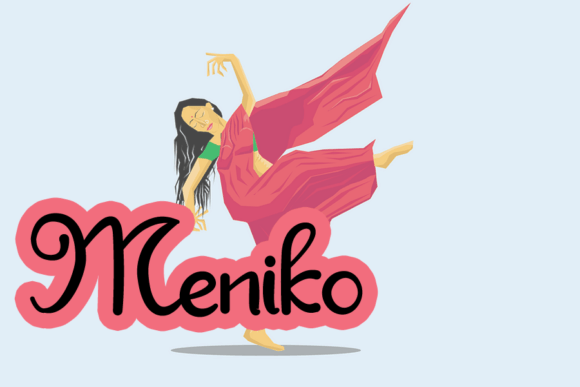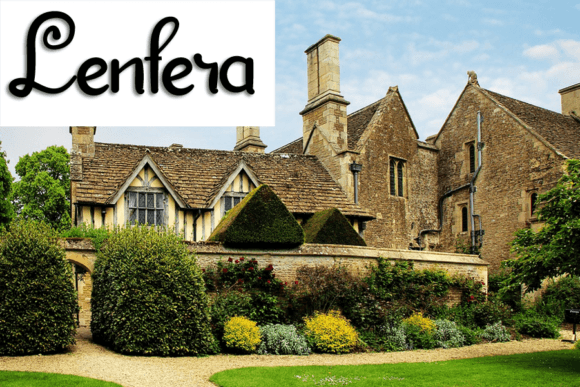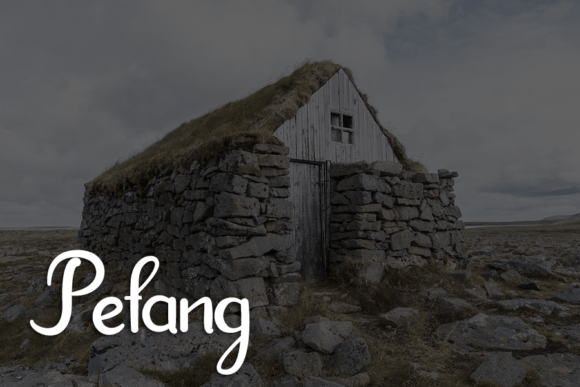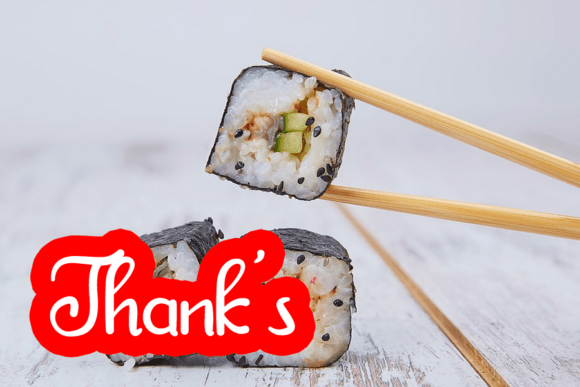
Jadul Font
About Jadul Font
Jadul, an enchanting and elegant handwritten font, possesses a distinctive allure that elevates the aesthetic of diverse design projects. Its captivating script is particularly well-suited for applications such as wedding invitations, thank-you cards, quotes, greeting cards, logos, business cards, and any creative endeavor that craves a personalized, handcrafted touch.
In the realm of wedding invitations, Jadul takes center stage as it weaves an intricate dance of letters, infusing each word with a sense of romance and sophistication. The strokes of this font, carefully crafted to embody elegance, gracefully unfold on the canvas of invitations, creating an atmosphere of timeless beauty. Couples seeking to express the uniqueness of their love can rely on Jadul to convey a message that goes beyond words.
Thank-you cards, a medium for expressing gratitude, find an ideal companion in Jadul. The handwritten charm of this font imparts a genuine and heartfelt quality to words of appreciation. Whether acknowledging a thoughtful gesture or extending warm wishes, the script’s graceful curves and flowing lines add a personal touch that resonates with sincerity.
Quotes, with their power to inspire and uplift, acquire a new dimension when adorned with Jadul. The font’s artistic flair transforms words into visually striking statements, encouraging contemplation and reflection. Each letter seems to carry the weight of wisdom, enhancing the impact of the message being conveyed.
Greeting cards, designed to convey emotions and well wishes, become works of art when graced by Jadul. Its charming script creates a connection between sender and recipient, transcending the ordinary and turning a simple card into a keepsake. The font’s ability to evoke sentiment makes it an ideal choice for occasions that demand a touch of warmth.
Logos, the visual representation of a brand, gain a unique identity when styled with Jadul. The handwritten elegance adds a personal and approachable element to the corporate image, making the brand stand out in a sea of generic designs. In the business world, where first impressions matter, Jadul leaves an indelible mark.
Business cards, often the first point of contact in professional settings, benefit from Jadul’s sophisticated charm. The font imparts a sense of refinement, subtly conveying that the individual or business it represents values attention to detail and aesthetics.
In conclusion, Jadul stands as a versatile and timeless choice for those seeking a handwritten font that transcends the ordinary. Its ability to enhance the visual appeal of a wide array of designs, coupled with its innate charm and elegance, makes Jadul a captivating asset for any creative project. Let this font be the brushstroke that turns your designs into masterpieces, leaving a lasting impression on every observer.